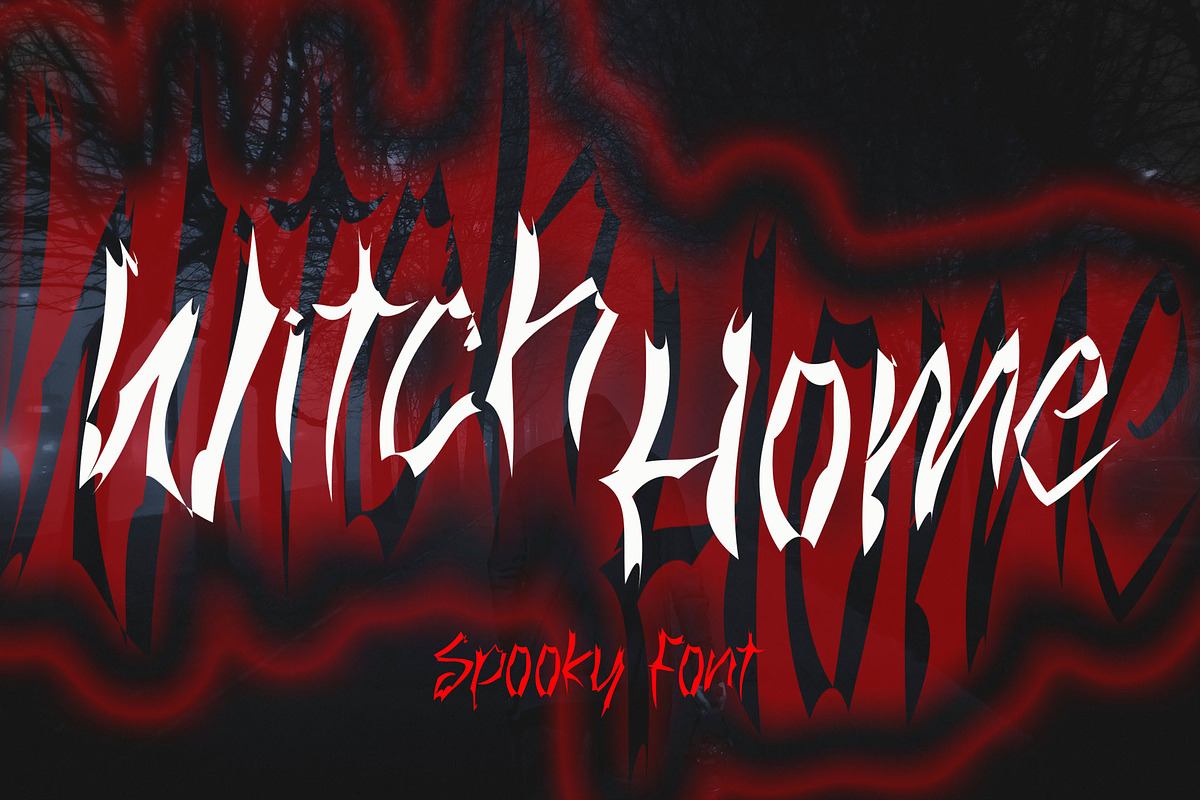
Witch Home - Halloween Font Free Download
Witch Home – Halloween Font Free Download
Witch Home – Halloween Font Free Download is a spooky, whimsical typeface that captures the eerie magic of Halloween night. With quirky curves, creepy details, and a hand-drawn gothic vibe, this font is perfect for haunted house flyers, witch-themed party invites, spooky merchandise, and eerie social media posts.
Its playful yet mysterious look makes it ideal for both kid-friendly and dark, magical Halloween designs. Whether you're creating DIY crafts, treat bag tags, or digital spellbooks, Witch Home brings the right blend of fright and fun to your typography.
Designers love its Halloween spirit and unique character. Ready to enchant your audience? Download Witch Home – Halloween Font Free Download and let your next spooky design cast a stylish spell!